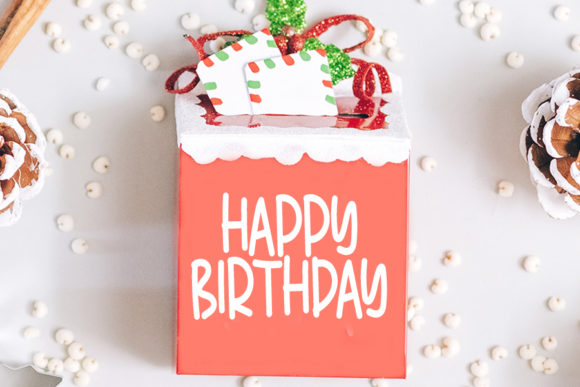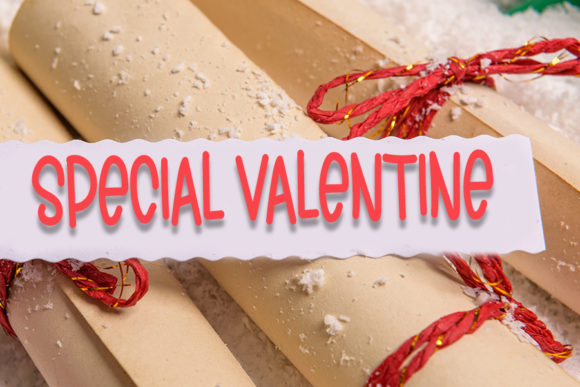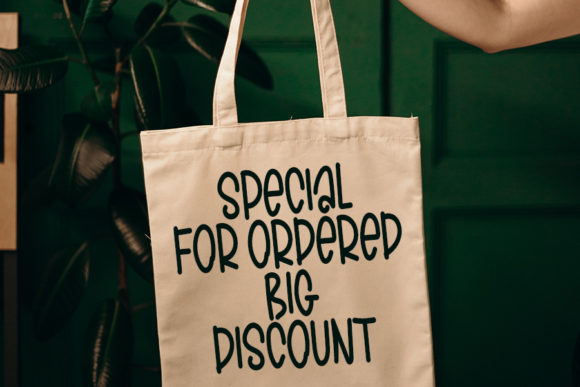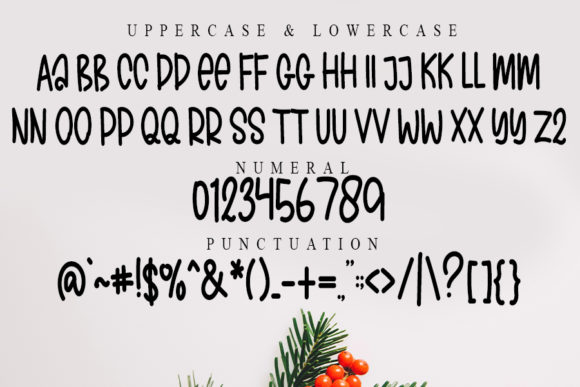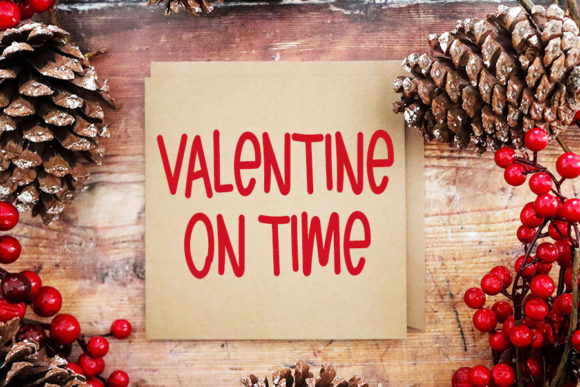
The Perfect Touch of Whimsy: Brownis Cakes Font
Have you ever found yourself stuck in a creative rut, searching for the perfect font to bring your designs to life? I know I have. It’s like trying to find the perfect recipe for your favorite dessert – you want something that’s going to make your taste buds dance with joy. And that’s exactly what I found when I stumbled upon the Brownis Cakes Font.
This sweet and quirky handwritten font is the perfect addition to any designer’s toolkit. With its dainty and joyful feel, it’s ideal for writing neat cards, creating personalized invitations, or adding a touch of whimsy to your digital designs. Whether you’re a seasoned pro or just starting out, the Brownis Cakes Font is a valuable asset that will help you take your designs to the next level.
- Unique Characteristics: Brownis Cakes Font is a modern, hand-drawn font with a unique blend of rustic and elegant elements, featuring a wide range of glyphs and ligatures.
Brownis Cakes Font Review
Overall, I’d say the Brownis Cakes Font has its moments. Here are a few things that work well: ✨
- Unique aesthetic: The font has a distinctive, handmade look that could add a touch of warmth to certain designs.
- Wide character set: It includes a decent number of characters, including uppercase and lowercase letters, numbers, and punctuation.
- Good for baking and food-related projects: The font’s theme is perfect for any project related to baking, food, or cooking.
- Limited font weights and styles: The font only comes in a few weights, which may limit its versatility.
- No italics or obliques: If you need to emphasize certain text or create a sense of movement, you’re out of luck.
- Not ideal for body text: The font’s uniqueness can be a double-edged sword – while it’s great for headlines, it may be hard to read in large blocks of text.
Overall, I think the Brownis Cakes Font is a solid choice for projects that need a bit of personality, but it may not be the best fit for more complex or long-form content.
Brownis Cakes Font is perfect for:
Food bloggers and recipe websites
Cake and bakery businesses
Wedding and event planners
Anyone looking for a playful and whimsical font
Alternatives to Brownis Cakes Font
Brownis Cakes Font is a popular font choice for designers, but it may not be the best fit for every project. Here are some alternative fonts that can provide a similar look and feel:
Amarante
Amarante is a elegant and sophisticated font that is perfect for luxury brands, high-end products, and fine dining experiences. It has a similar cursive feel to Brownis Cakes Font, but with a more refined and polished look.
Compared to Brownis Cakes Font, Amarante is more versatile and can be used in a variety of contexts, from invitations to packaging design.
Playfair Display is a luxurious and elegant font that is perfect for high-end brands, fashion designers, and luxury products. It has a similar vintage feel to Brownis Cakes Font, but with a more refined and sophisticated look.
Compared to Brownis Cakes Font, Playfair Display is more formal and can be used in a variety of contexts, from magazine headlines to wedding invitations.
Carolyna Pro is a elegant and sophisticated font that is perfect for luxury brands, high-end products, and fine dining experiences. It has a similar cursive feel to Brownis Cakes Font, but with a more refined and polished look.
Q: What is the recommended font size and line height for optimal readability with Brownis Cakes Font?
For optimal readability, we recommend using a font size between 12-14 points and a line height of 1.2-1.5 times the font size. This will provide a clear and comfortable reading experience, especially for body text and paragraph content.